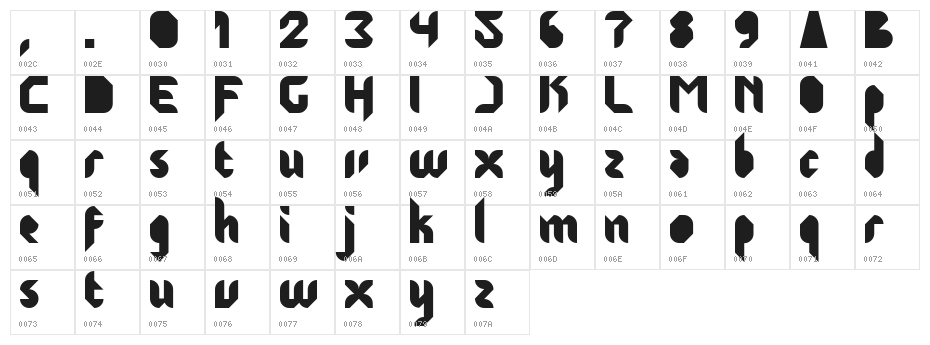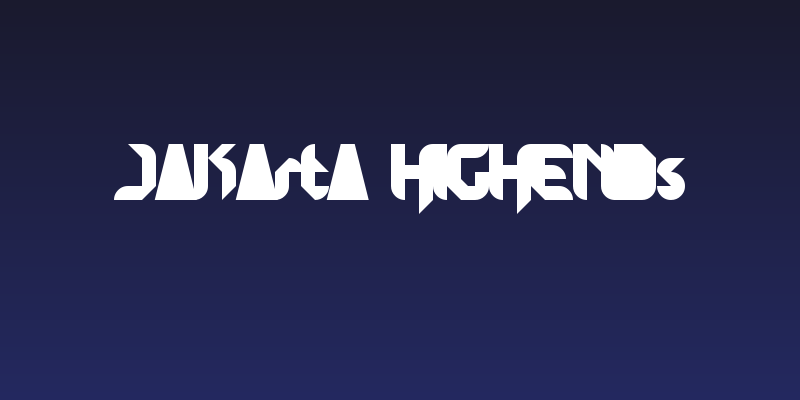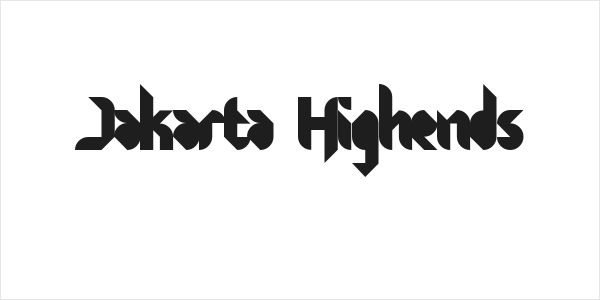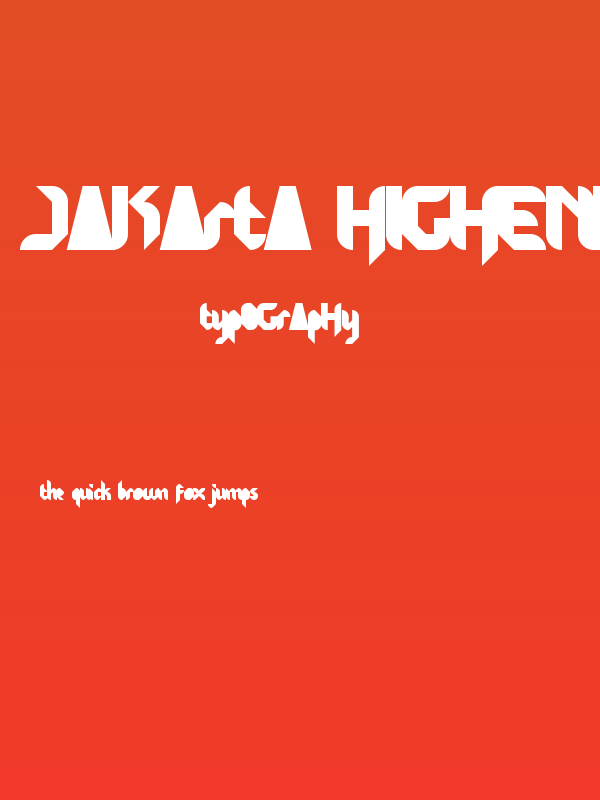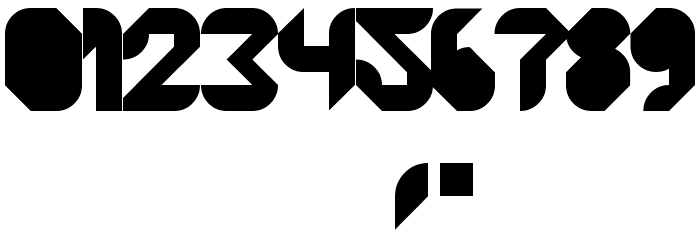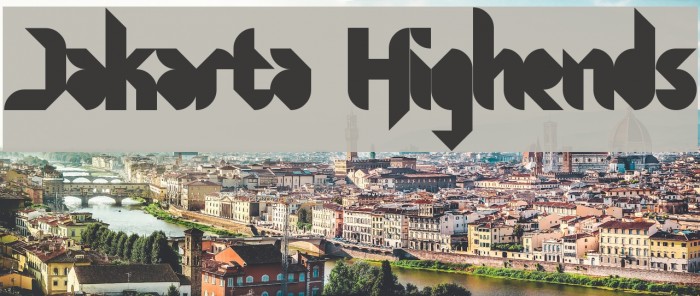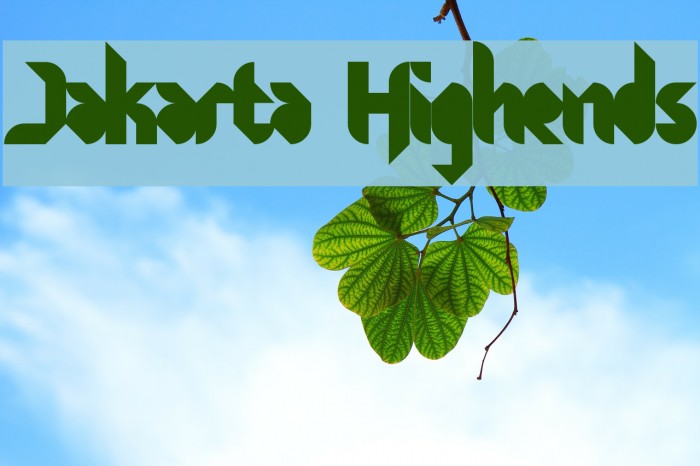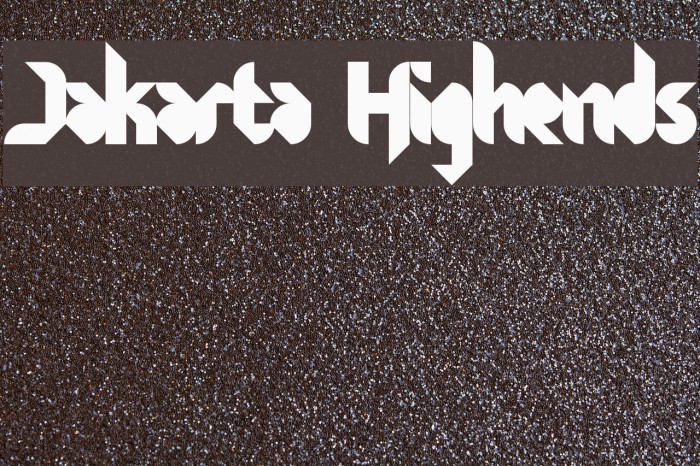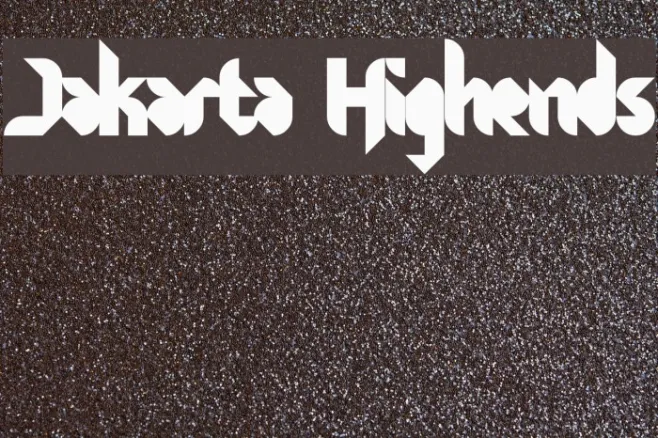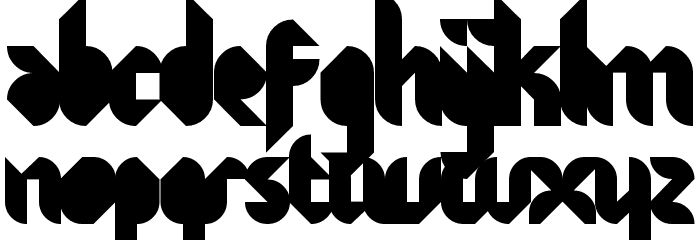
Jakarta Highends Font
Jakarta Highends Description
This font features a bold and geometric design with sharp angles and a futuristic aesthetic. The characters are constructed with thick strokes and distinct edges, creating a strong visual impact. The uppercase and lowercase letters maintain a consistent style, while the numerals and special characters complement the overall design. The font's unique structure makes it suitable for modern and edgy projects, standing out with its striking appearance.
| Proposed Projects | Ideal for branding, posters, album covers, and any project requiring a modern, edgy look. |